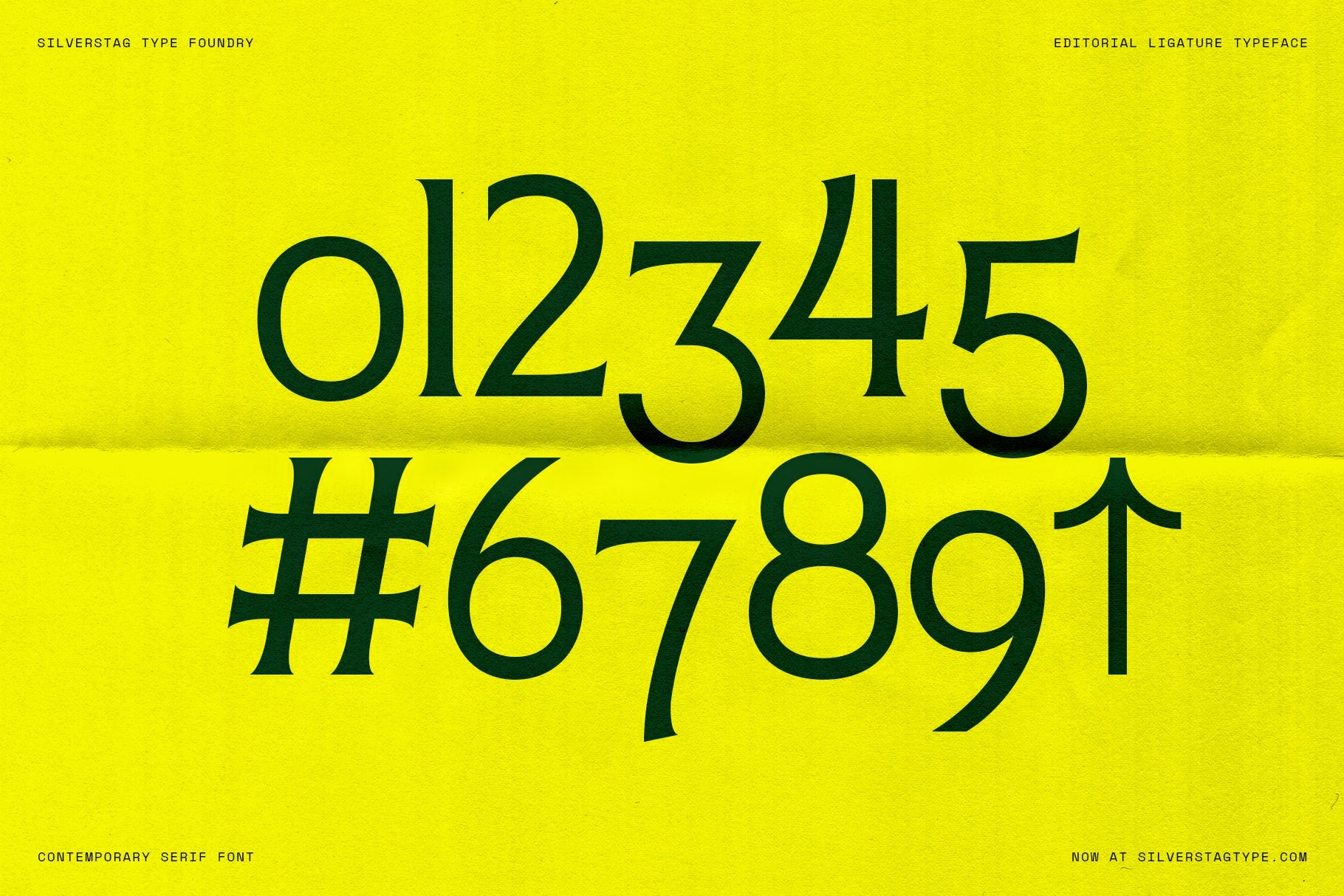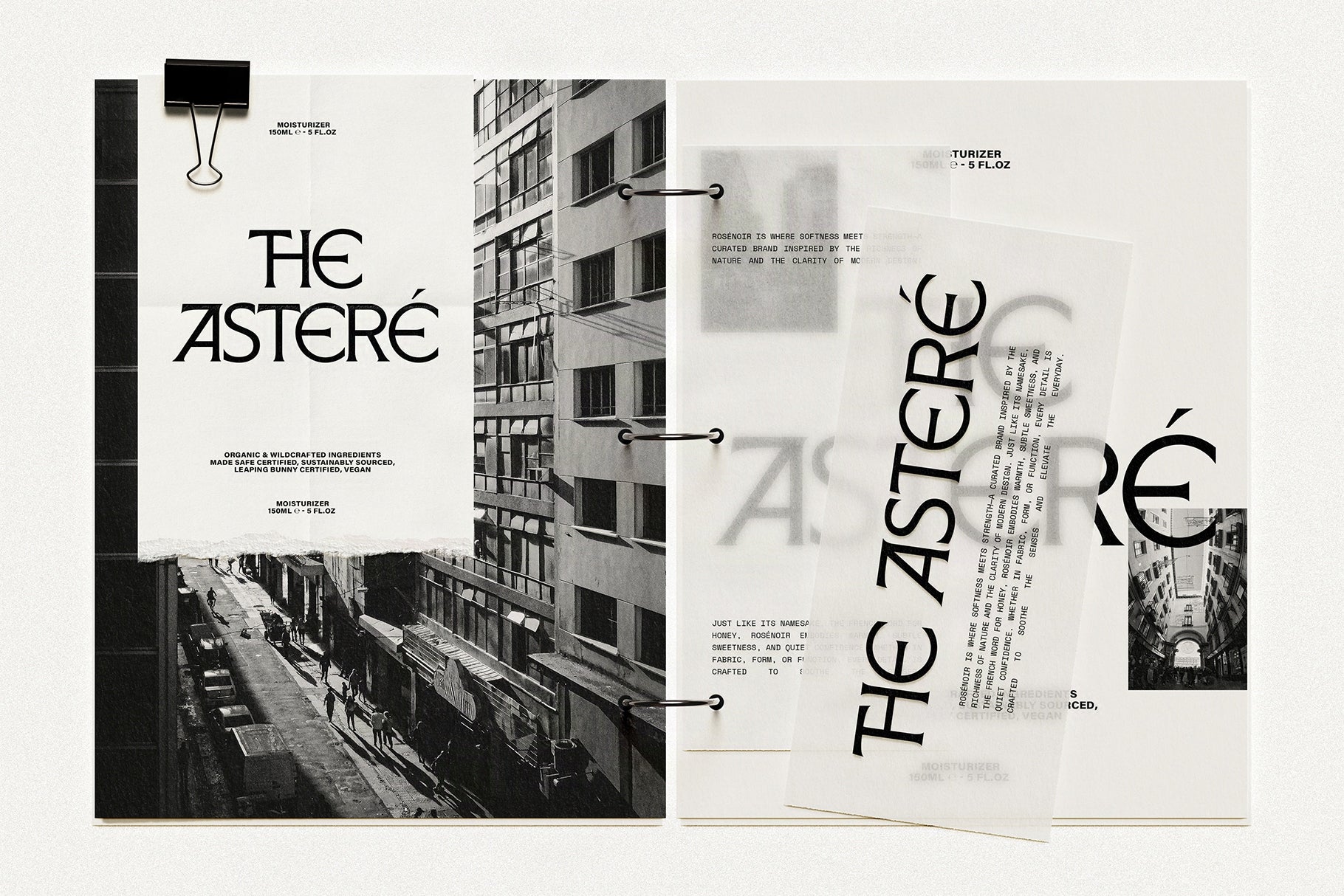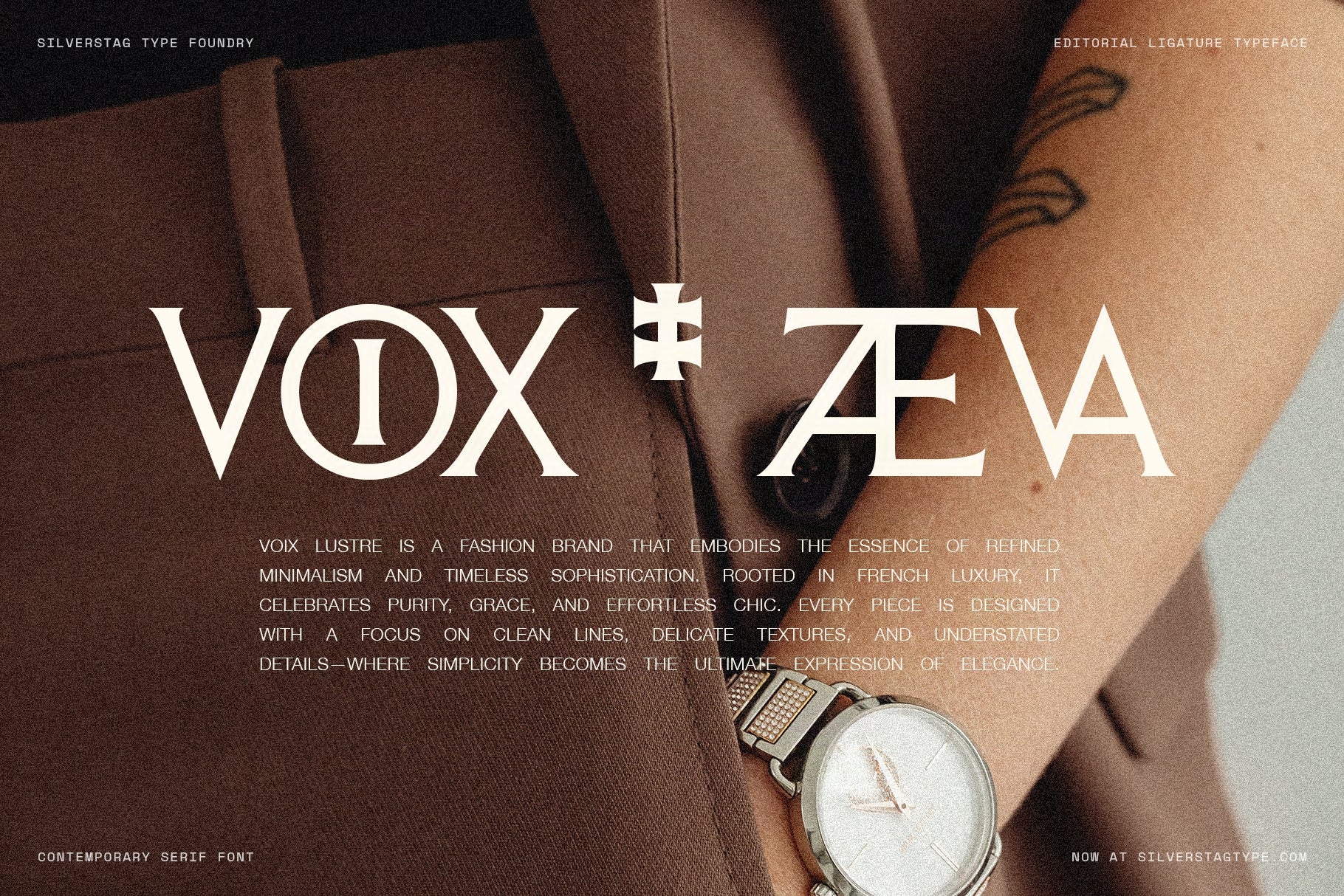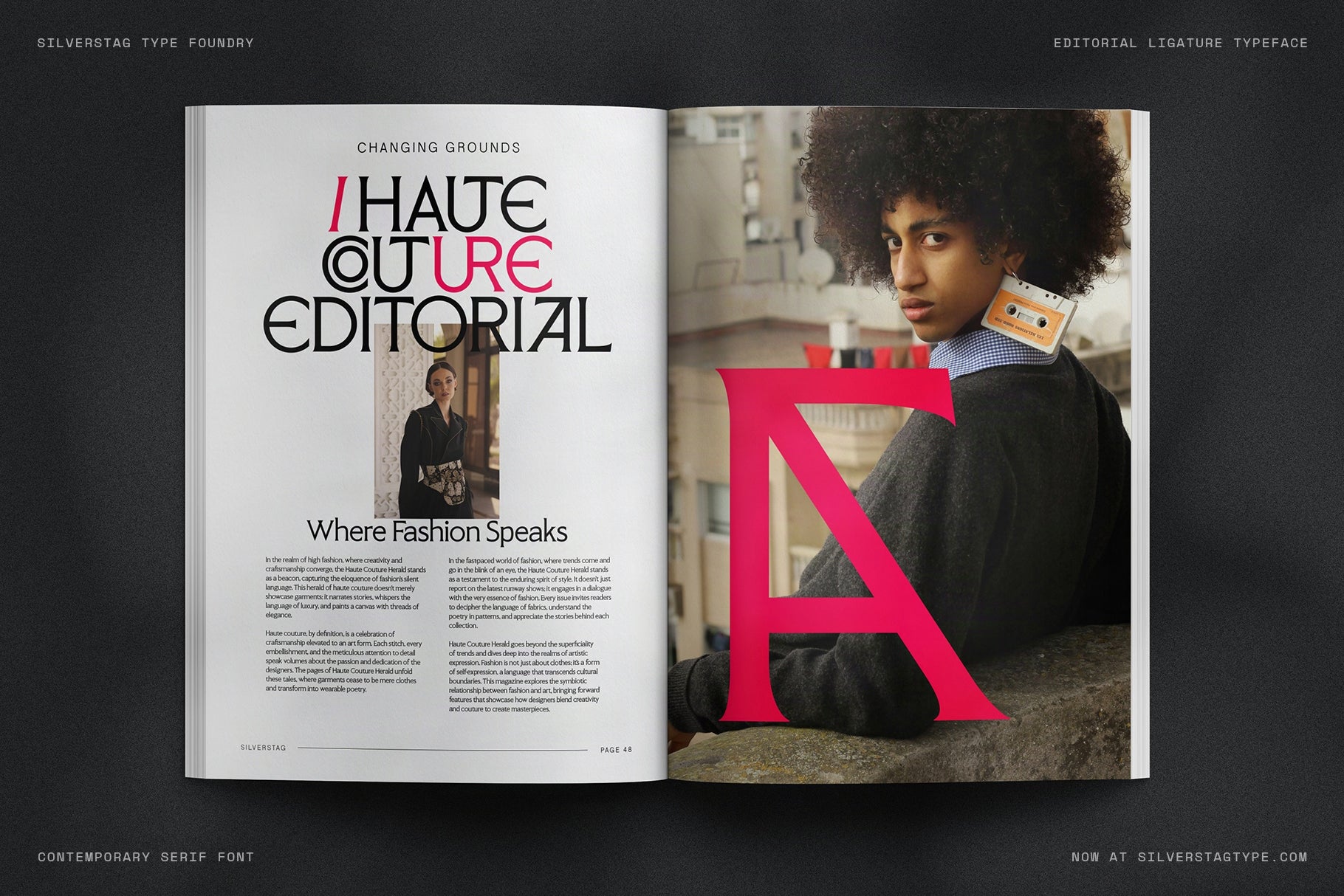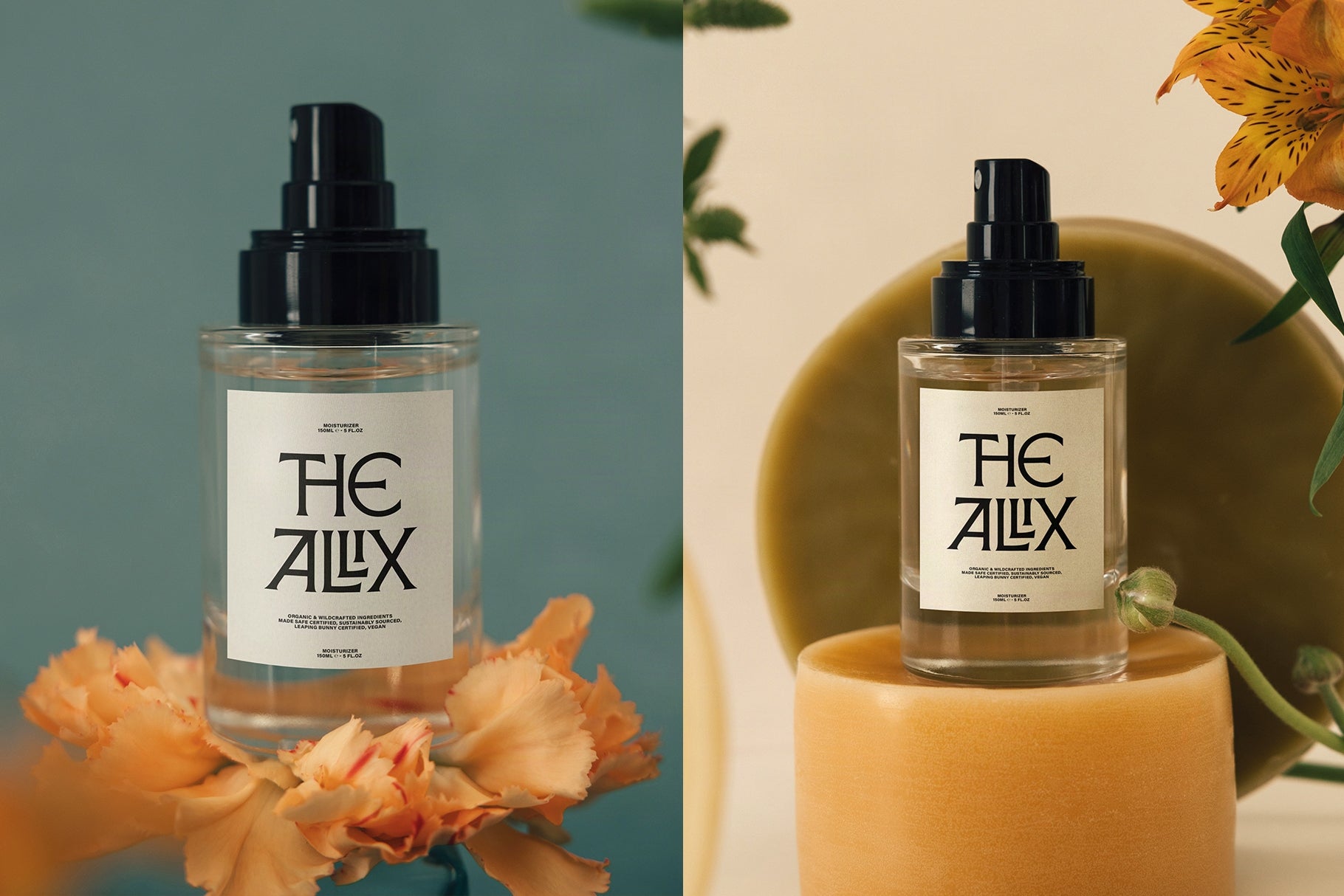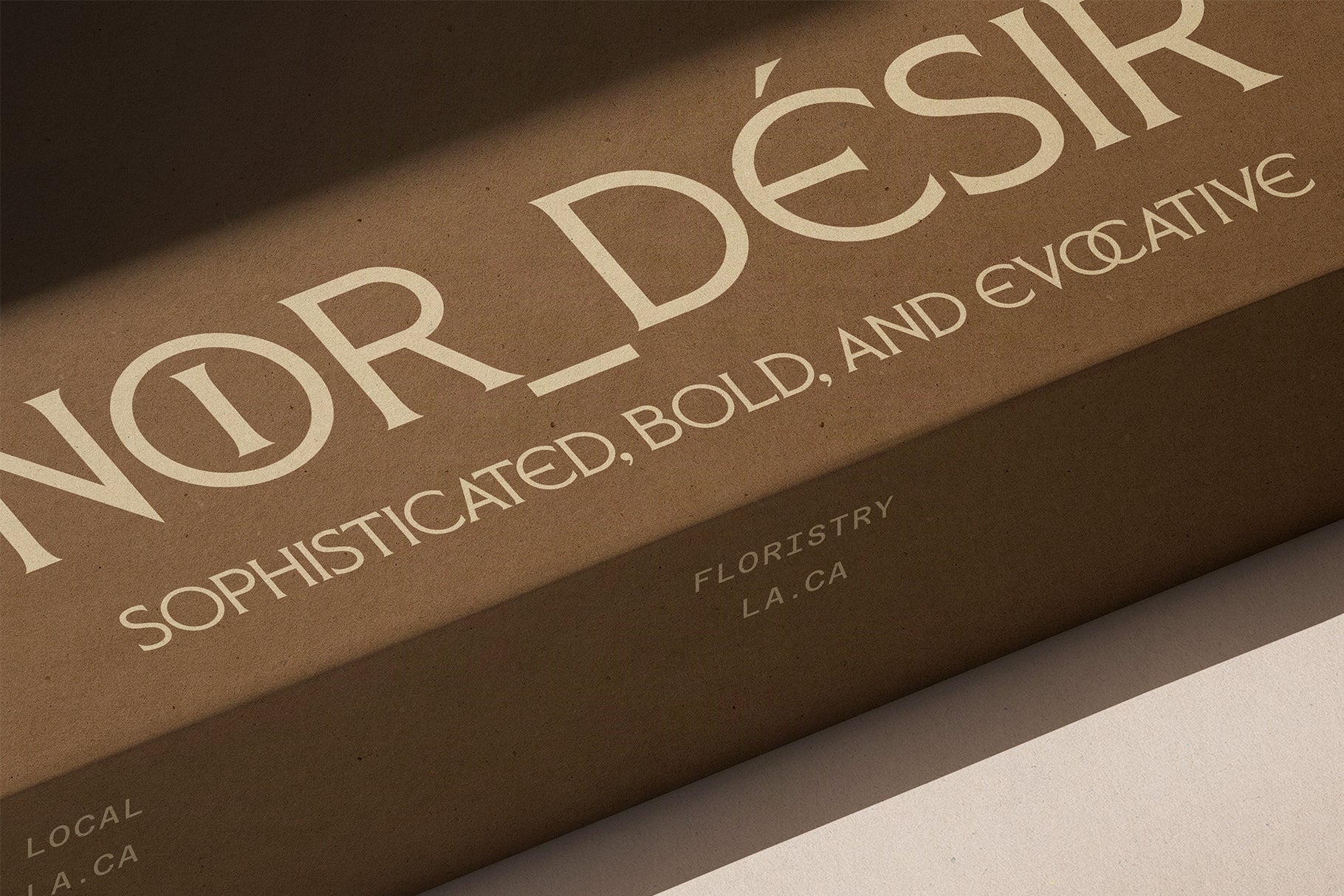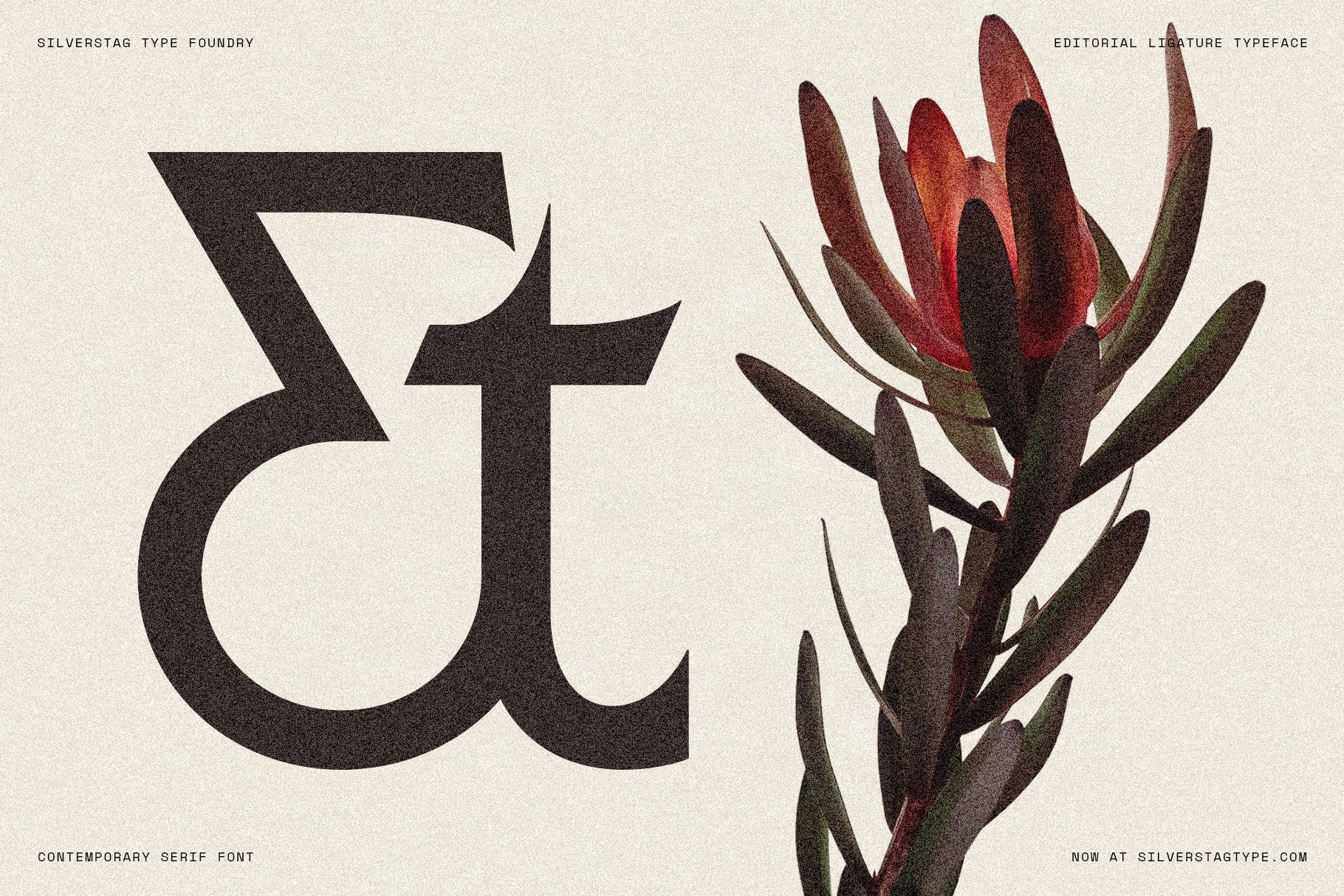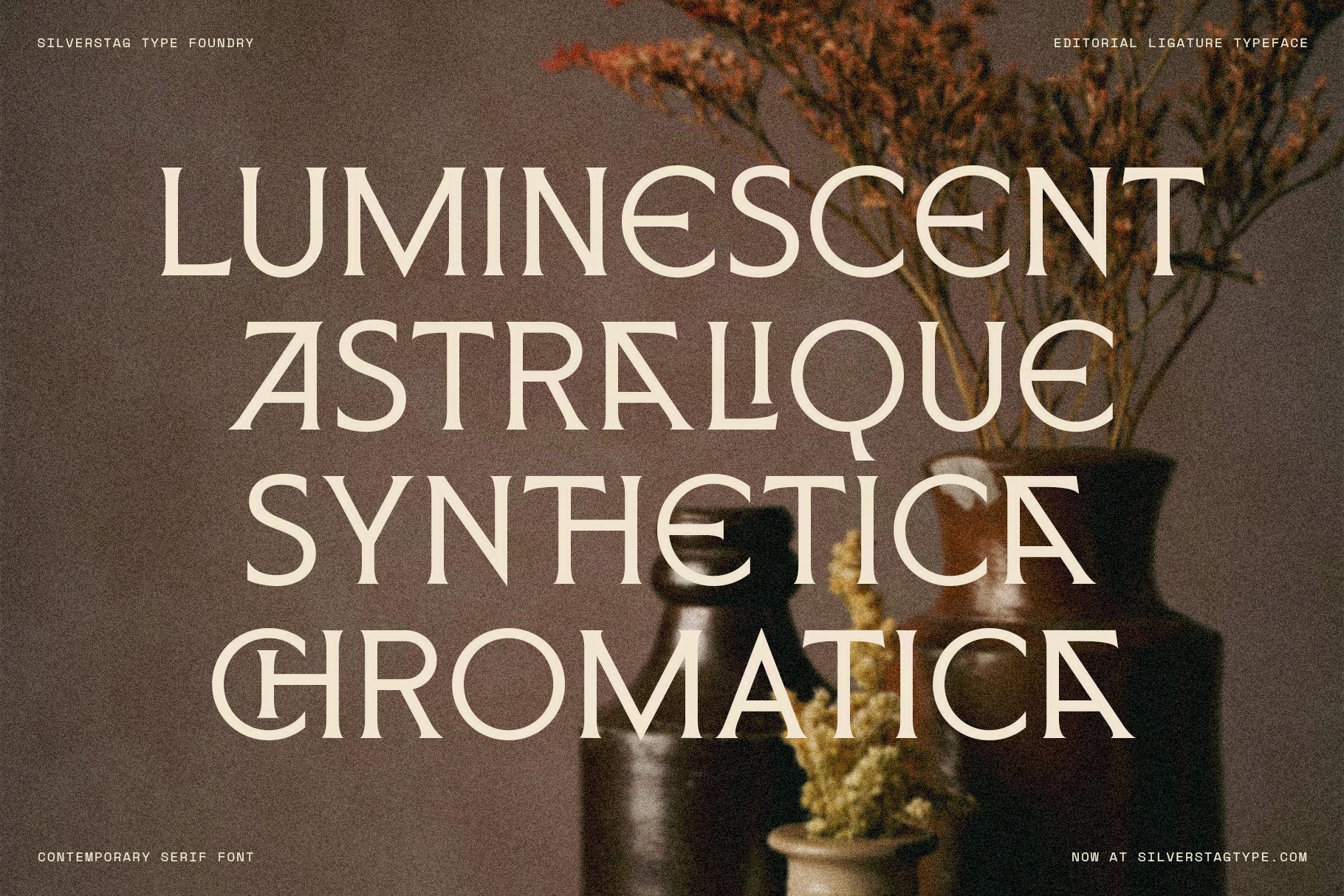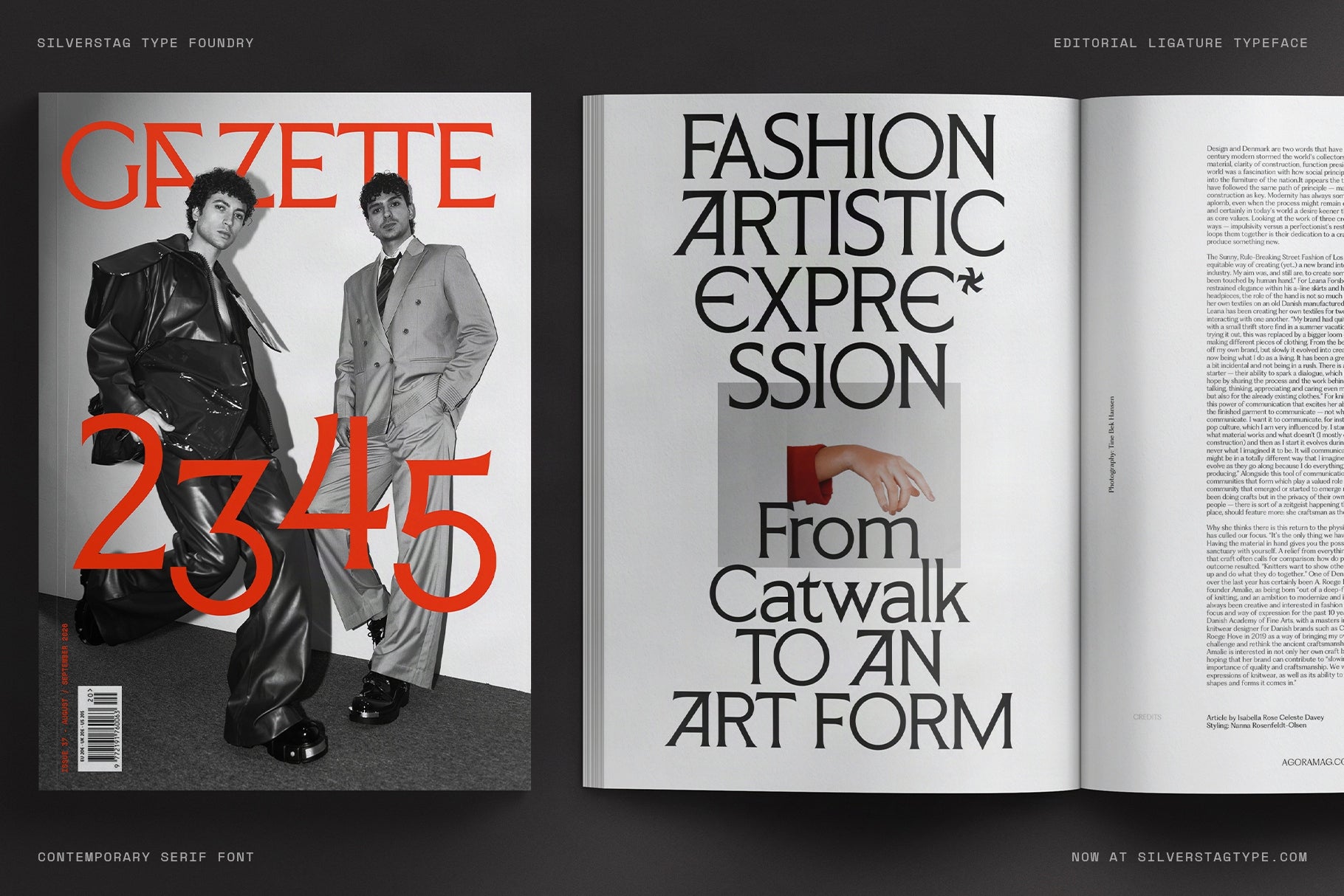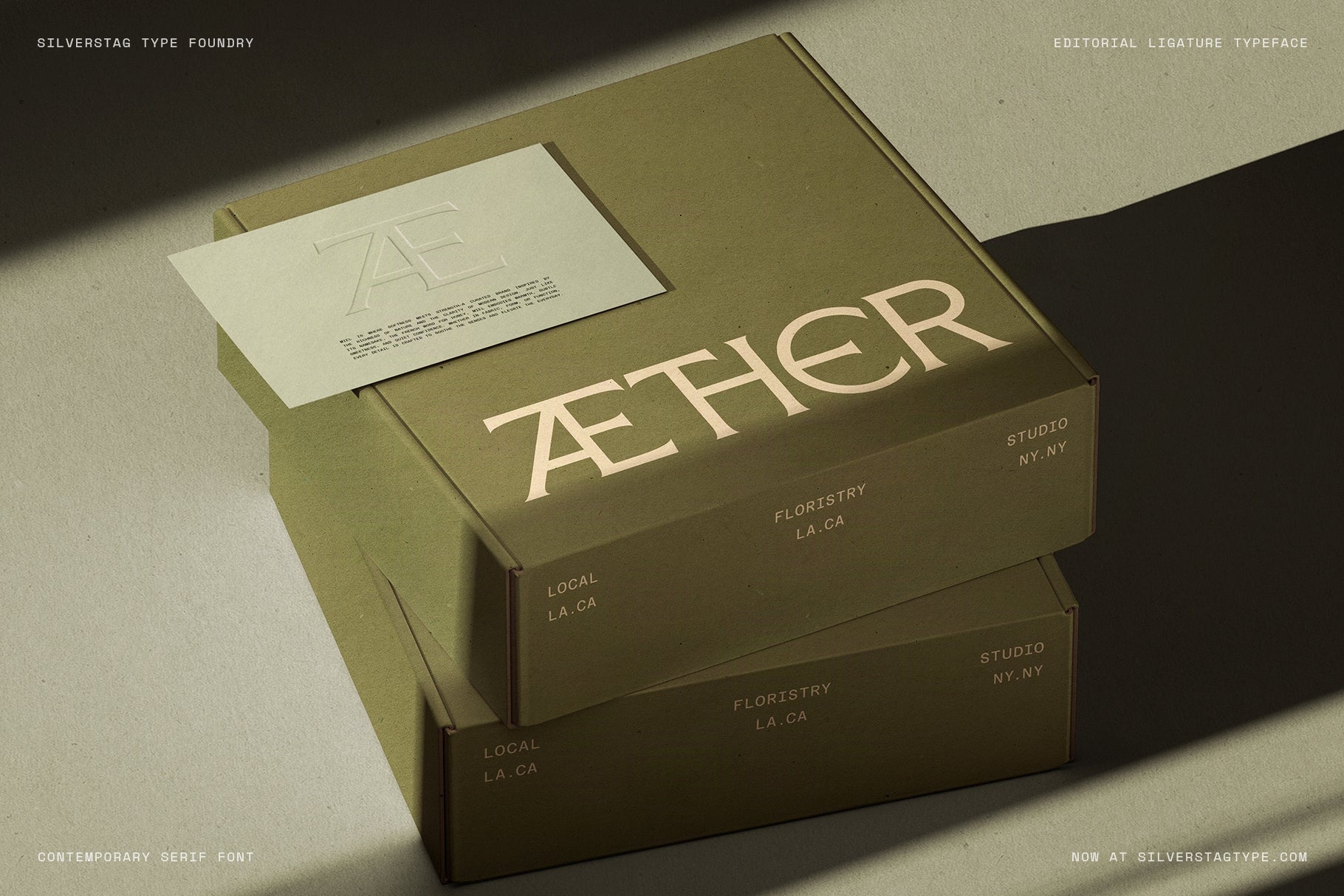
SLTF Arcilla is a contemporary editorial serif typeface designed for brands, creatives, and art directors who want typography with structure, personality, and a distinctive editorial presence. It combines the sharpness of modern serif design with sculpted forms, expressive angles, and a system of refined ligatures that create a unique visual rhythm. Arcilla brings a confident and stylish feel to any layout while staying versatile enough for identity work, product branding, packaging, magazines, lookbooks, websites, and luxury campaigns.
The typeface is built around clean lines, calibrated contrast, and a character system designed to elevate typography through thoughtful shapes rather than noise. The curves are smooth and balanced, the terminals are intentionally sculpted, and the serifs carry just enough tension to feel modern without losing warmth. Arcilla has the clarity of a contemporary serif and the subtle edge of a boutique editorial font crafted for high impact.
Every letter was redrawn multiple times to reach a consistent visual rhythm. The proportions allow it to feel elegant at large sizes while staying crisp and readable in smaller editorial text. The signature alternates and ligatures give designers the ability to shape their own typographic voice, whether they are building a brand name, titling a magazine spread, or creating expressive headlines with personality.
Arcilla works well in fashion, beauty, lifestyle, wellness, architecture, and cultural projects. It adapts naturally to refined product packaging and high-end brand identities. Its unique shapes make names and titles feel more intentional, more curated, and more premium. This is a serif typeface that can define the tone of a visual system through typography alone.
The typeface includes a full set of uppercase and lowercase letters, numbers, punctuation, multilingual support for over 100 languages, and a set of ligatures and alternates that bring strong display performance to logos and headlines. It was crafted to be reliable in daily use while offering enough personality to make simple layouts feel editorial.
SLTF Arcilla is designed for art directors, graphic designers, branding studios, content creators, and anyone who wants a serif typeface with a contemporary structure, expressive forms, and a strong editorial attitude.